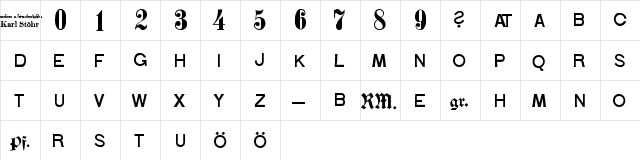
st?hr_numbers Regular
| Designer | Lukas Krakora |
Design Context for st?hr_numbers Typeface
st?hr_numbers is a composed and adaptable typeface that performs quietly and consistently across a wide range of design contexts.